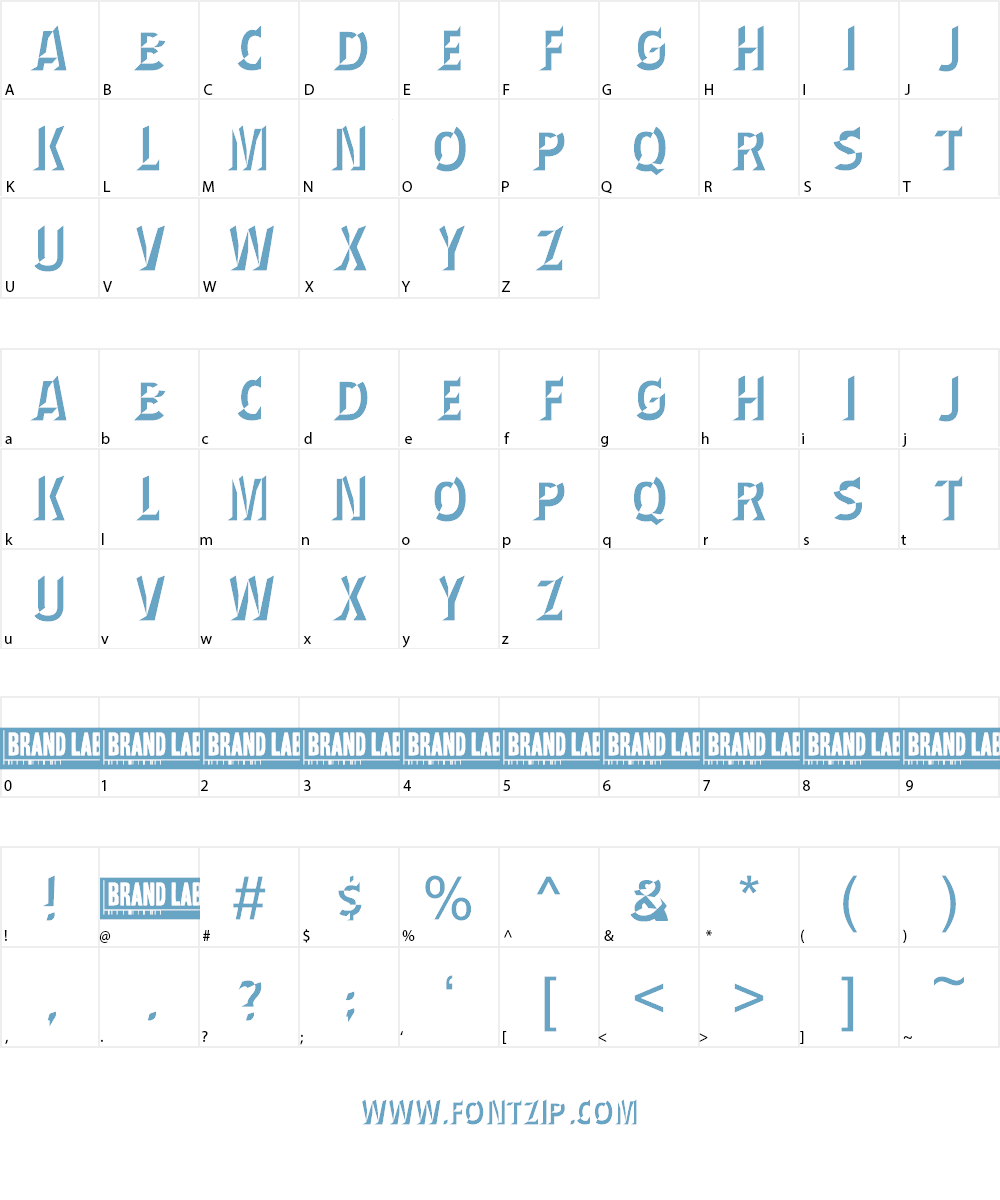
This font was inspired the old-style, faceted theater marquee letters. Here, they've been given a modern twist by relying on only the shadow to create the form, leaving the viewer to fill in the rest. It was designed by Kevin Skinner for Brand Labs, The Volusion eCommerce Experts. We offer it to you for free, either for personal or commercial use. Enjoy!